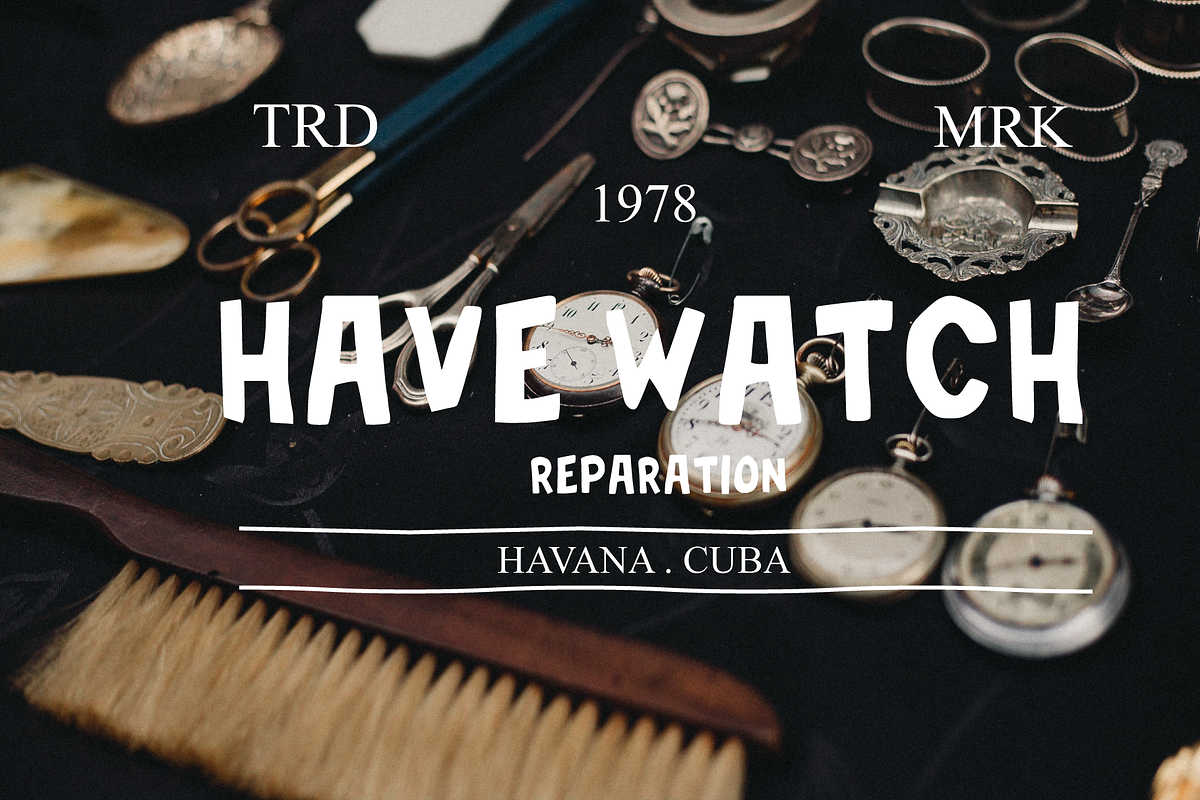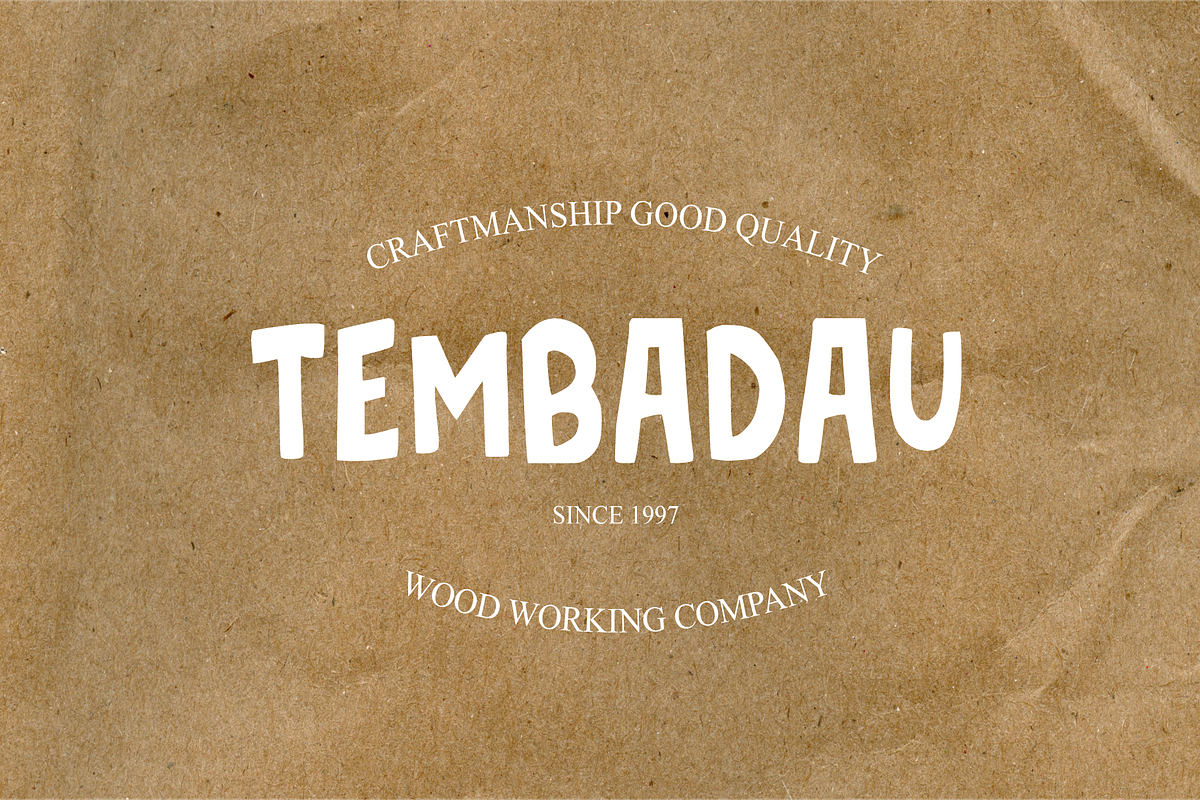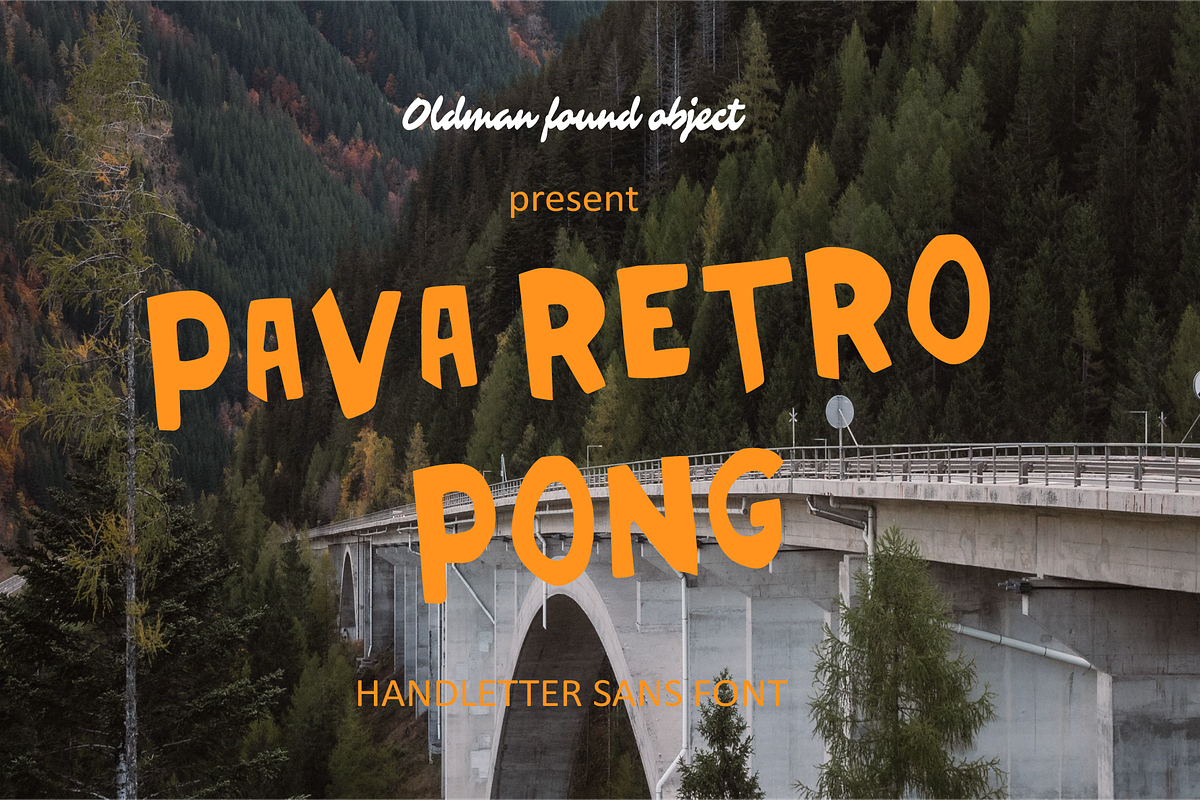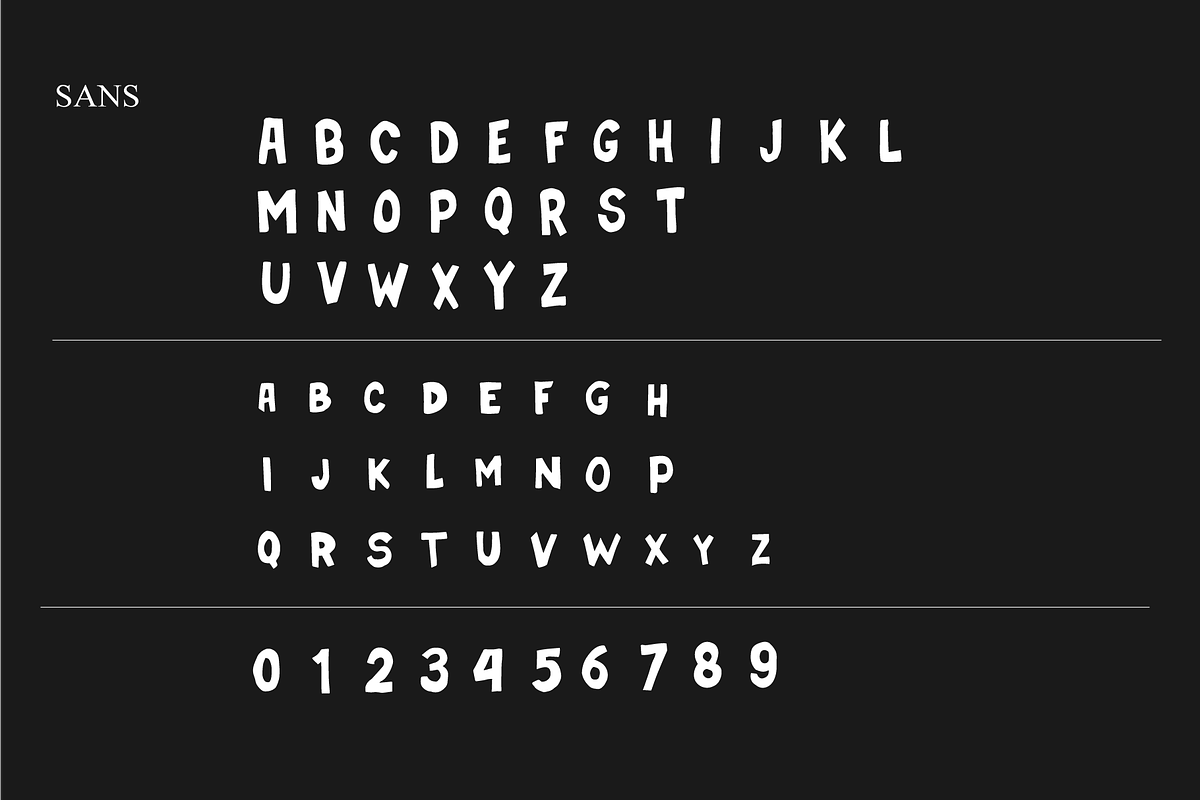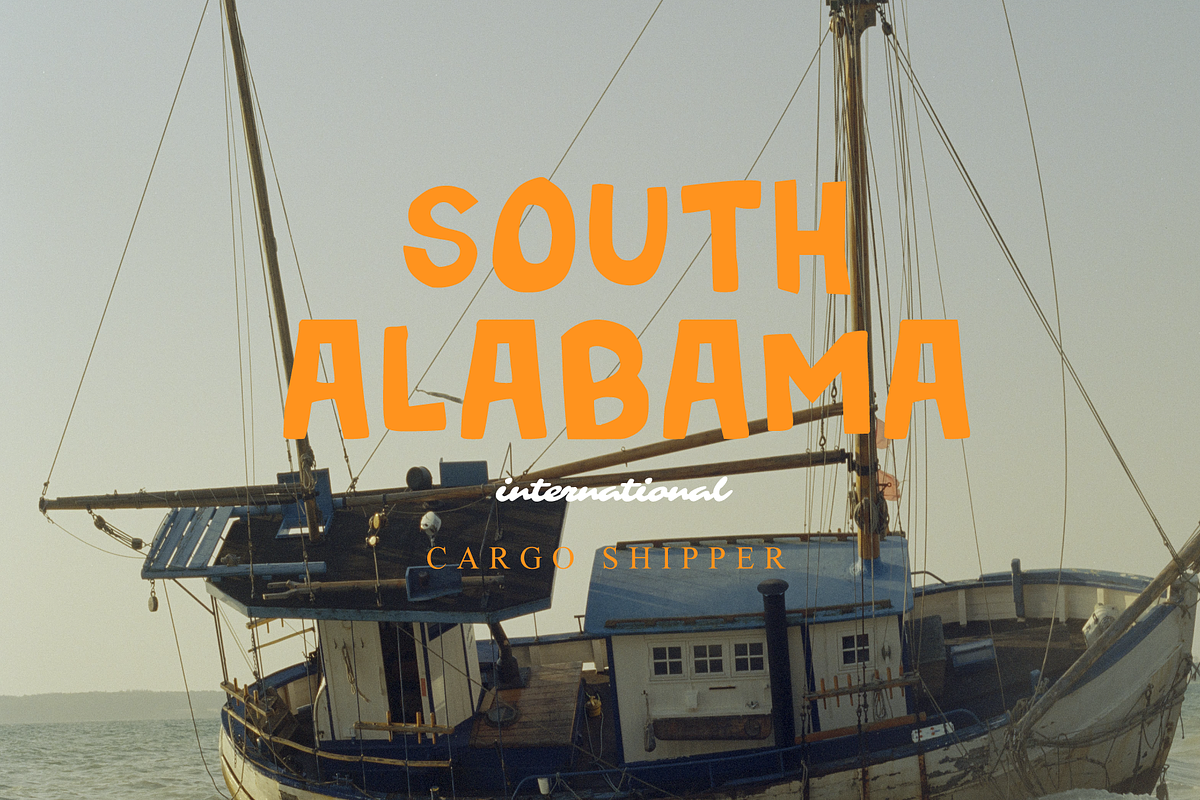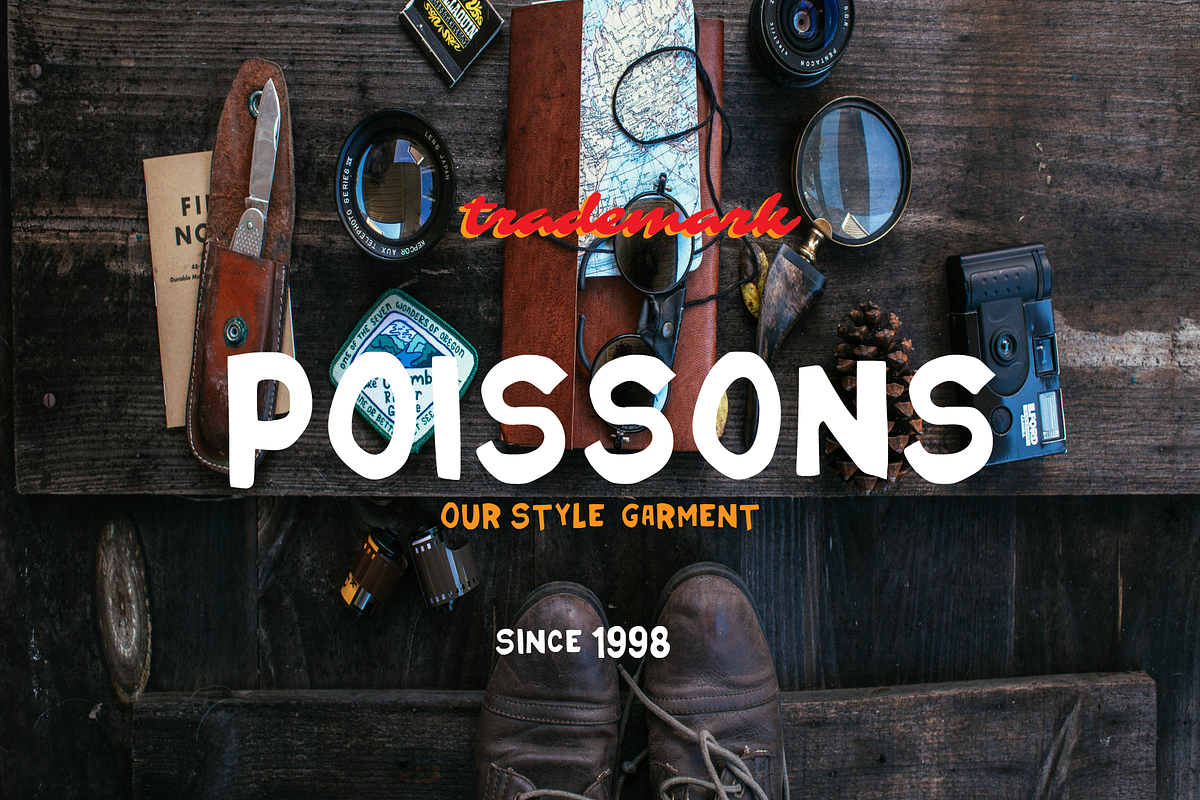
Pava retro pong
papa retro pong is a bold font with retro vintage looks. With stylish alternates, you can make your design looks stunning and stand out. This font also support multi language. Let this font make your project looks cool!
Features : Uppercase & lowercase
You can use this font for any purpose such as: Cafes & bakeries \~ Organic brands \~ Handcrafted goods \~ Vintage packaging \~ Editorial titles \~ Seasonal campaigns \~ poster \~ logotyp \~ quotes, and more.